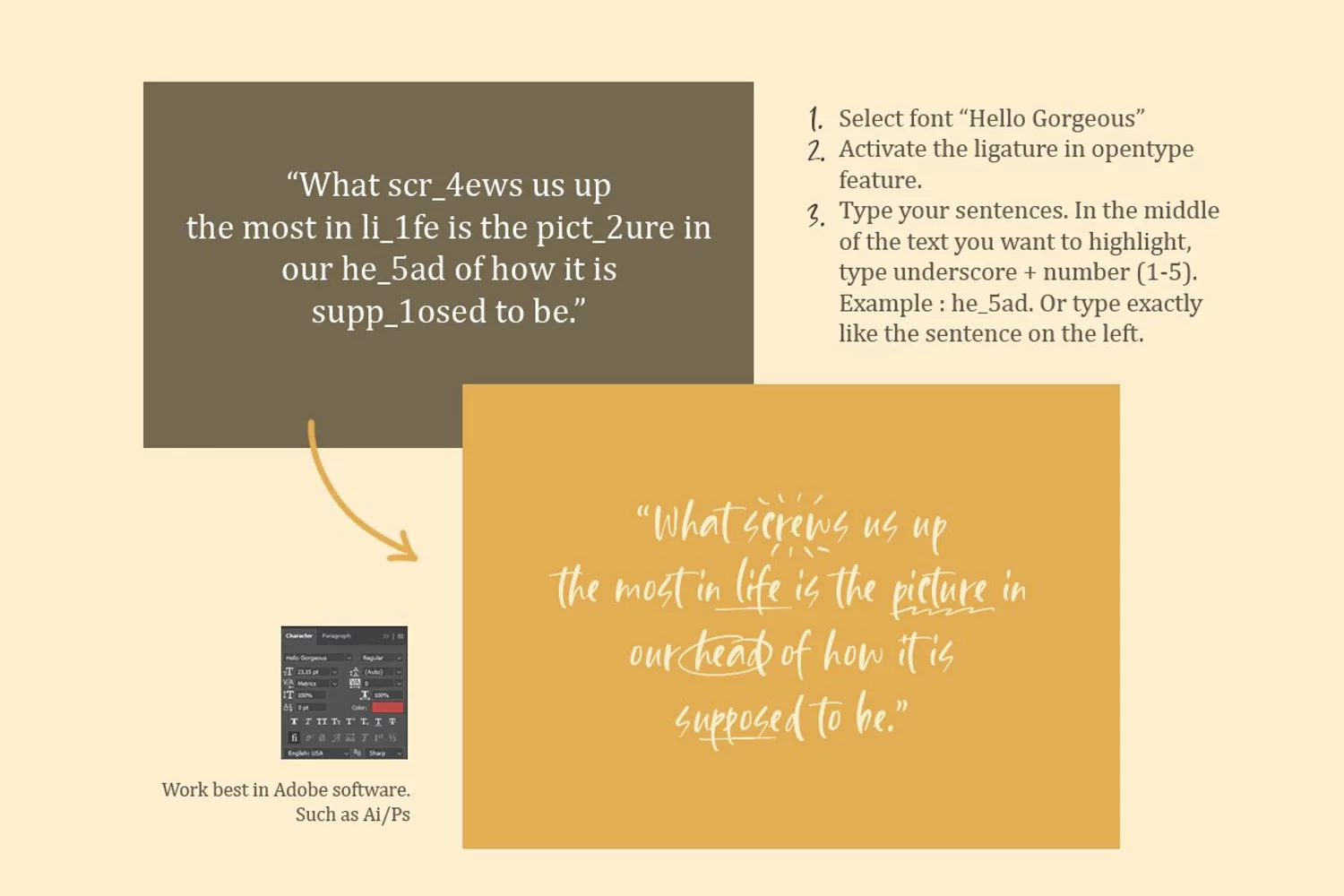
Hello Gorgeous is a stylish handwritten font that contain lowercase, uppercase, symbol, and also support multi language. This font also comes with essential ligature that will make your text more natural. Hello Gorgeous also suitable for logo branding, beautiful fashion design, suitable for wedding invitation, or handwritten quote. The special things about this font is you can also add some extras to your text such underline or an object like stars and love! Also already PUA Encoded.